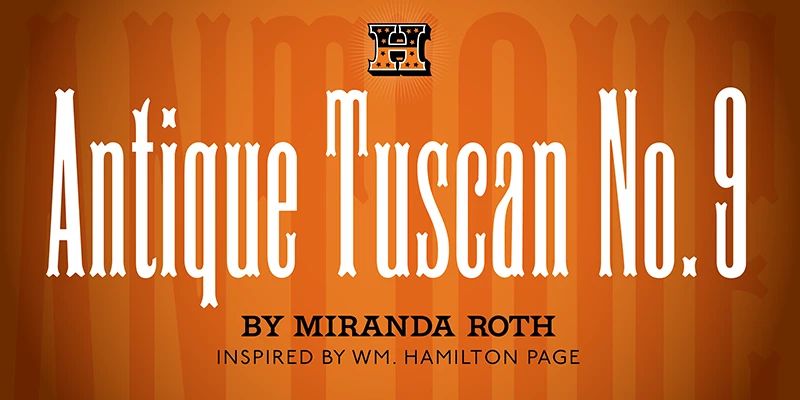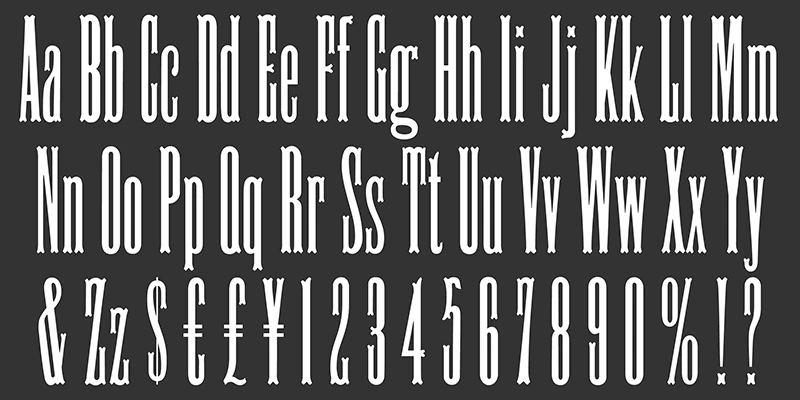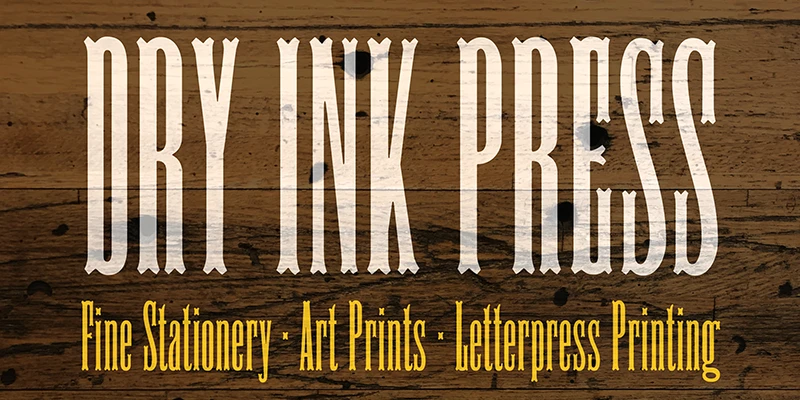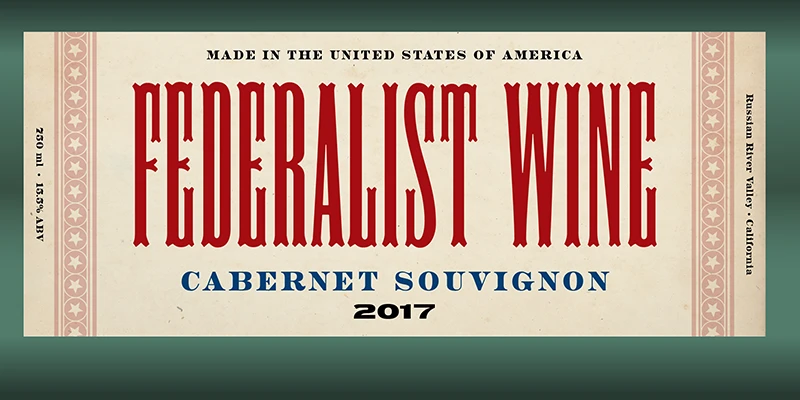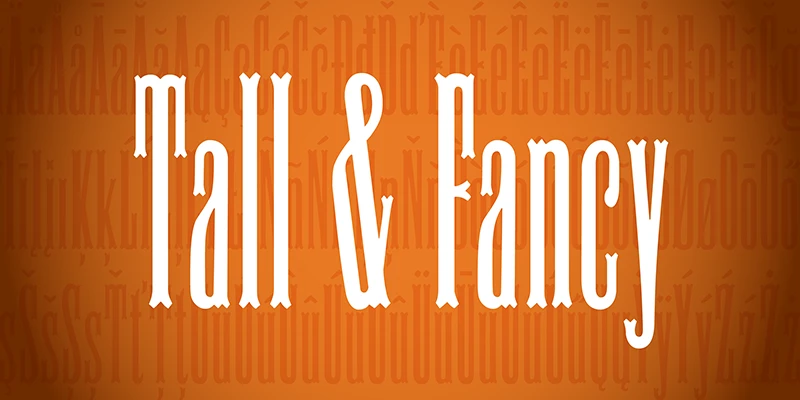
Antique Tuscan 9
From Hamilton Wood Type Collection
It is not an exaggeration to say that HWT Antique Tuscan is a very condensed 19th-century Tuscan design. This subtly detailed wood type was first shown by Wm H Page Co in 1859. Thanks to Miranda Roth Kirchmeyer’s work, this is the first digital version to include a lowercase and extended European character set. As lanky as Antique Tuscan is, it can make quite a statement when used at large sizes. Graphic designers everywhere! Imagine the dramatic headlines, posters, book covers, and packaging!
Designed by Miranda Roth Kirchmeyer